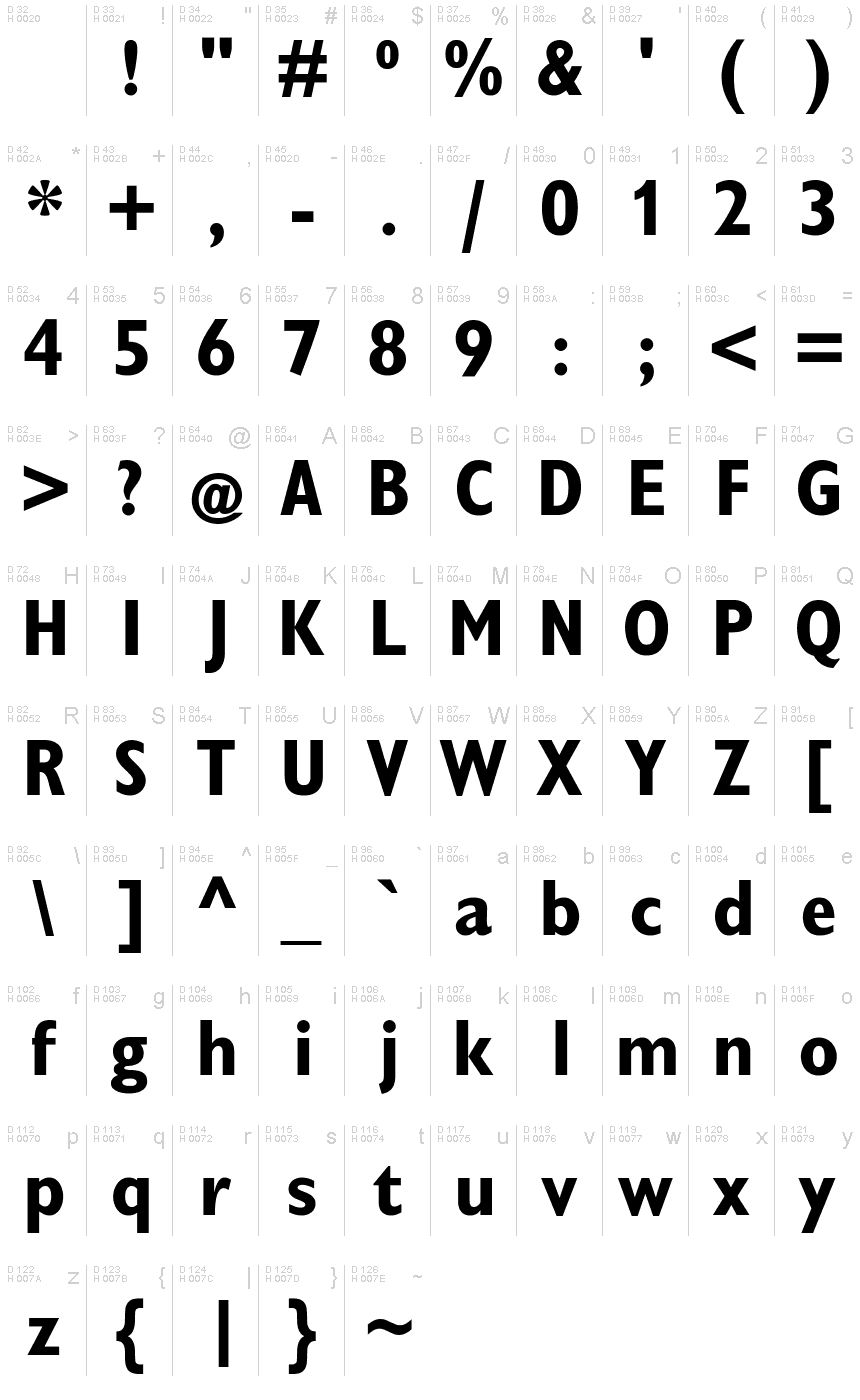
TGL12096.01
Introducing TGL12096.01, a semi-bold sans serif font designed by Peter Wiegel. This semi-condensed font is perfect for giving text an impactful look without sacrificing readability. It would be ideal for headlines, logos, posters, and other creative designs where boldness is desired in a more compact form. The distinctive character of TGL12096.01 gives it a unique edge for creating memorable messages and visual content!
The font was used in GDR for traffic signs, based on Gill Sans but with some modifications for better visibilizty